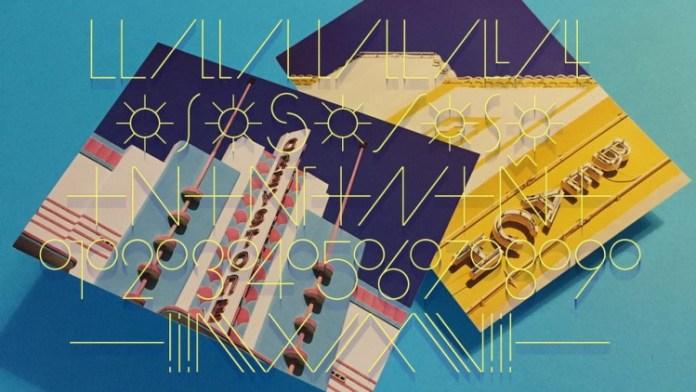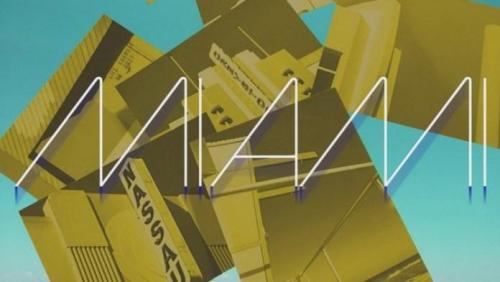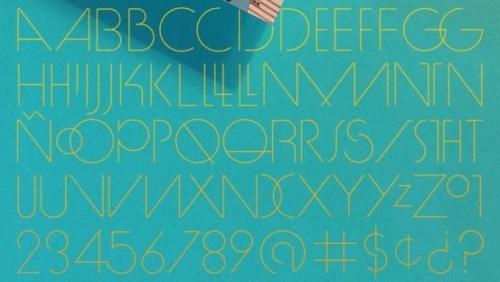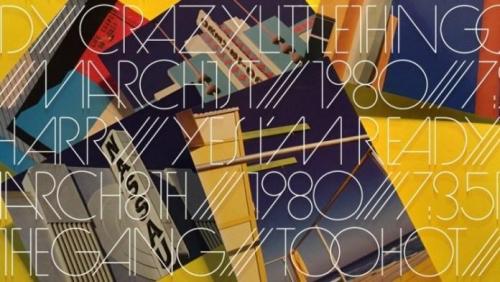
Miami Font is a typeface inspired by the city with its unique style. The thin white lines of the original logo reflect a culture, attitude and identity that endures – a relic of some glorious geometry, an unspeakable decor, riddled like the weather and the tides. A bit of plaster and plastic.
A multi-million dollars almost over night. Sails and all the rigging, motion neon, sharp-dressed and thinly upright. Miami is a moment, The Magic City, incorporated July 28, 1896.